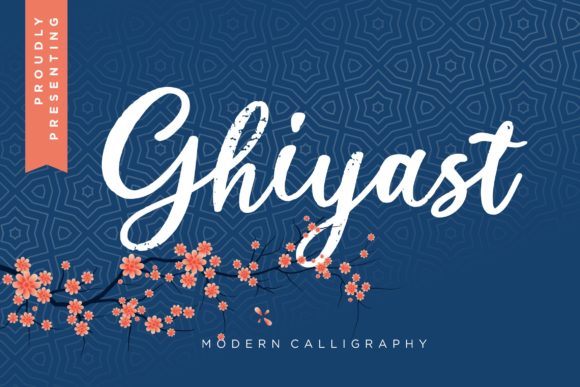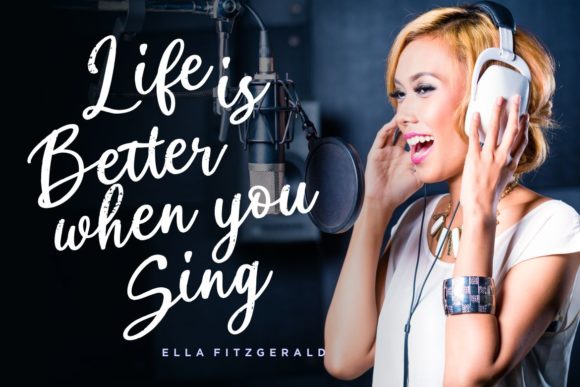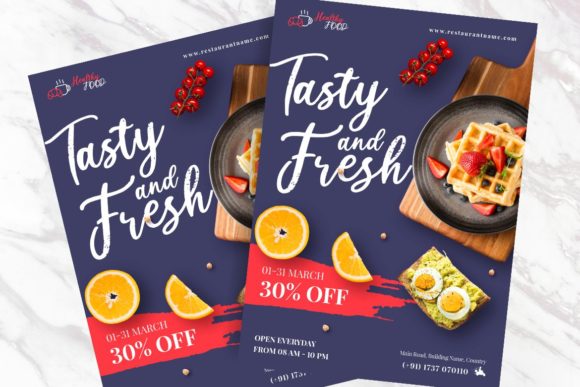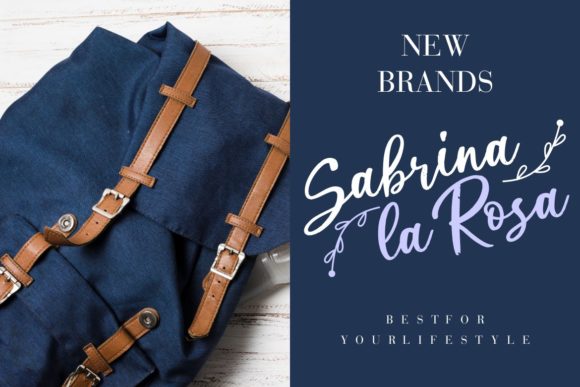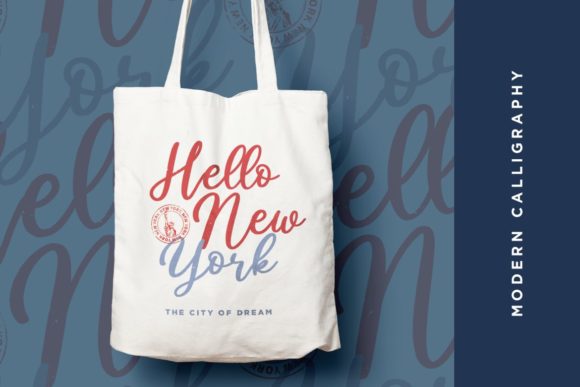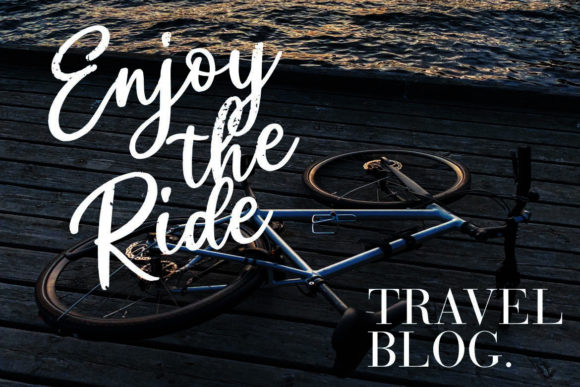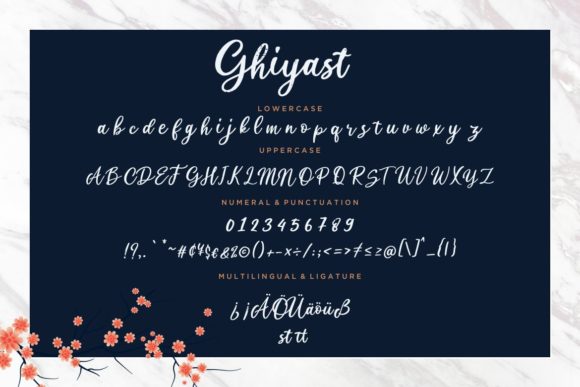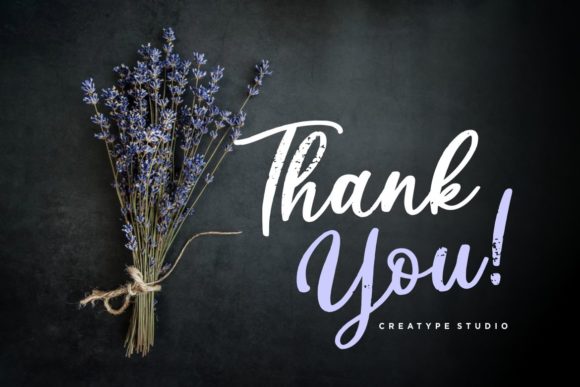
Ghiyast Font
About Ghiyast Font
Ghiyast is a flowing, beautiful handwritten font that sends out an unbelievably effortless feel. Use it to achieve an exquisite, yet subtle look and maximum versatility!